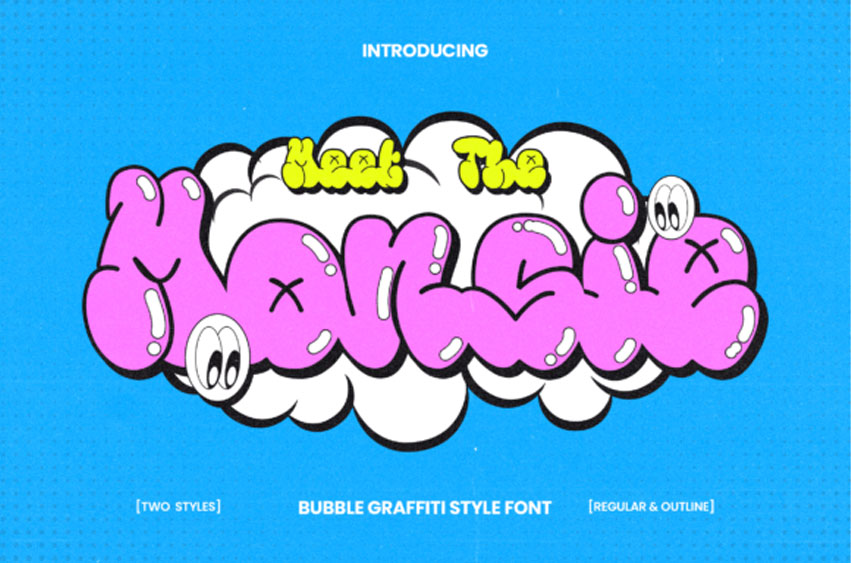
Monsie Font Unleash the nostalgic essence of early 2000s graffiti culture with Monsie, the captivating bubble style font.
Inspired by the rebellious spirit and urban artistry of that era, this font encapsulates the bold and playful essence of bubble lettering.